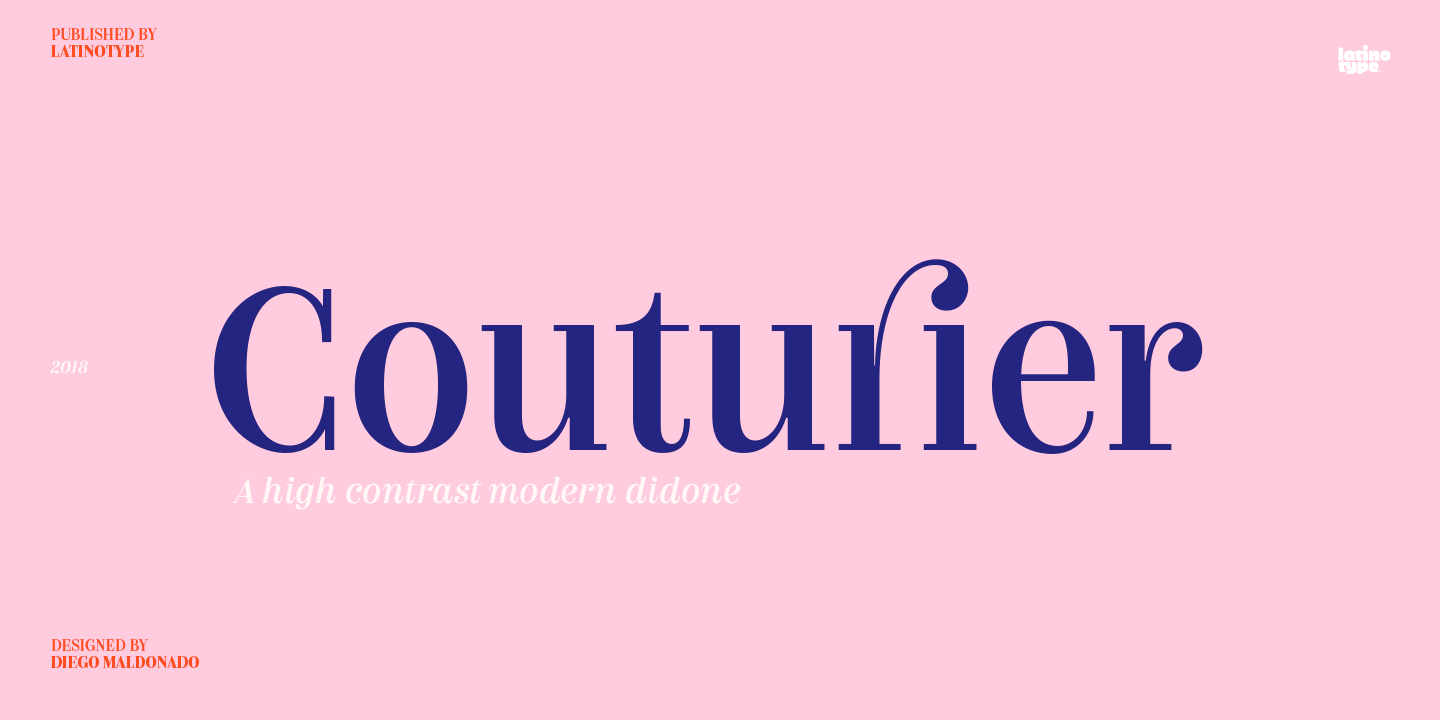
The Couturier Font is perfect for high-end fashion branding, luxury boutique logos, elegant magazine layouts, premium cosmetics packaging, sophisticated wedding invitations, upscale restaurant menus, jewelry brand identities, and exclusive event designs. This refined typeface excels in projects for fashion houses, beauty brands, luxury hotels, fine dining establishments, and premium lifestyle companies that demand sophisticated visual presentation.
What makes the Couturier Font exciting is its impeccable blend of Parisian elegance and contemporary chic. The font showcases refined letterforms with graceful proportions and subtle fashion-inspired details that exude luxury and exclusivity. Its sophisticated character captures the essence of haute couture craftsmanship, making every design feel premium and meticulously crafted. The font's inherent elegance and fashion-forward aesthetic create an immediate association with quality, style, and refined taste.
The Couturier Font family includes multiple elegant variations: Regular, Light, Bold, Italic, Thin, and Display versions. Each weight maintains the font's couture-inspired sophistication while offering versatility for different luxury applications. The family also features stylistic alternates, elegant ligatures, and fashion-specific glyphs that enhance high-end design projects.
Whether you're developing luxury brand identities, creating premium fashion campaigns, or designing sophisticated marketing materials, the Couturier Font Free Download provides the ultimate solution for projects requiring fashion-forward typography. This exceptional typeface transforms ordinary text into couture-quality visual statements, making it an essential tool for designers working in the luxury and fashion industries.